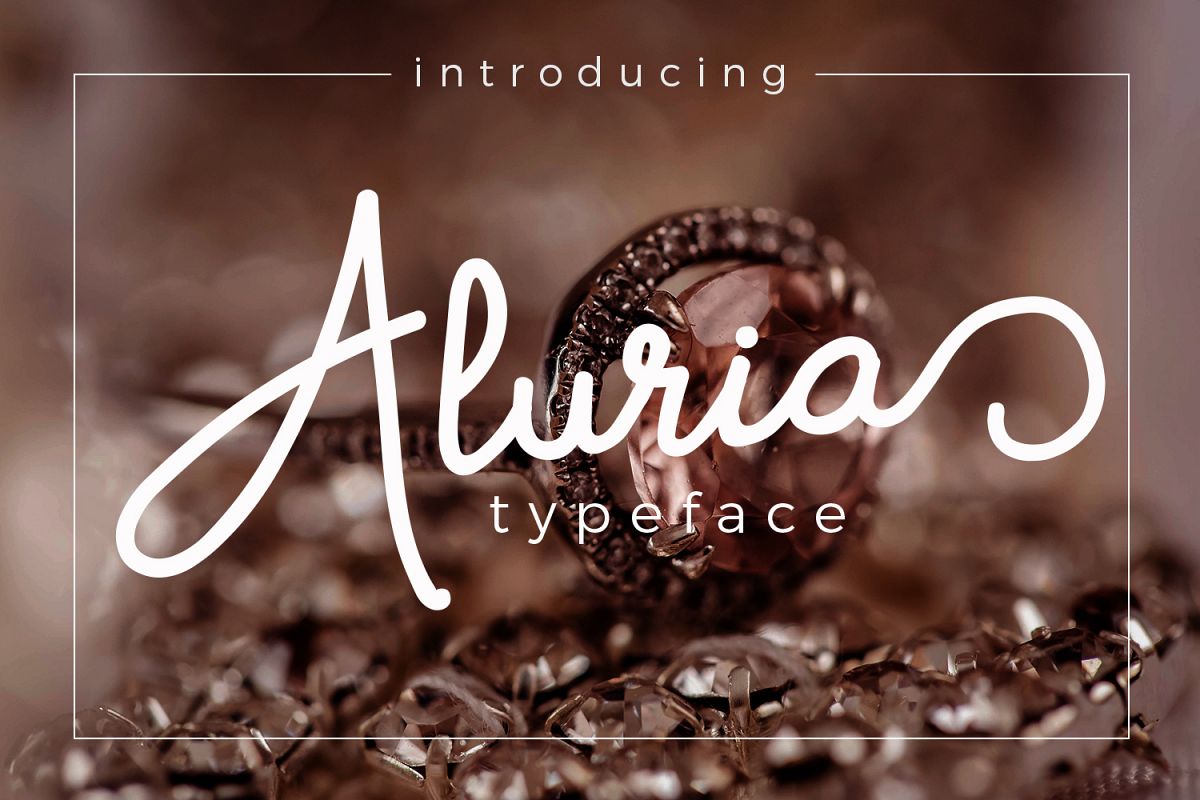
Aluria - Signature Font
Aluria signature font is inspired from handwritten font. Aluria is great for branding design, signature designs, product packaging, quote, heading, simply design with stylish text overlay to any background image.
- uppercase & lowercase letters
- numbers & punctuation
- alternate glyphs from a to z